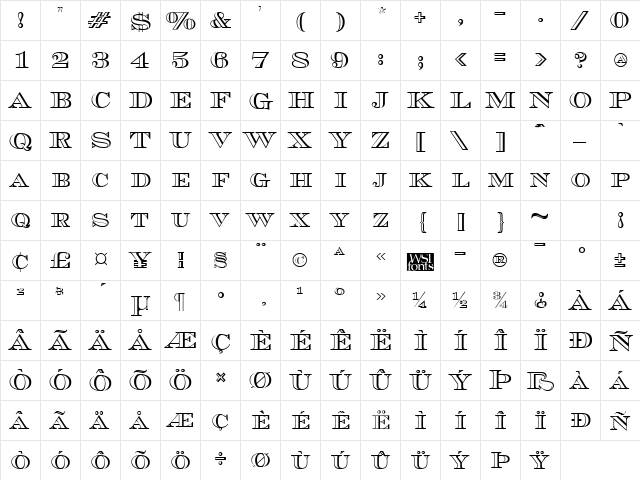
CurrencyOutline Regular
Design Context for CurrencyOutline Typeface
CurrencyOutline is built around its visual character rather than neutral utility — its distinctive forms are designed to make an impression at display sizes.
Font Pairing: Pair with a clean neutral sans-serif for body copy to let CurrencyOutline's character lead without overwhelming the composition.
Pro Tip: Treat CurrencyOutline as the centrepiece of your typographic hierarchy. One strong heading set in a decorative face can carry an entire layout.